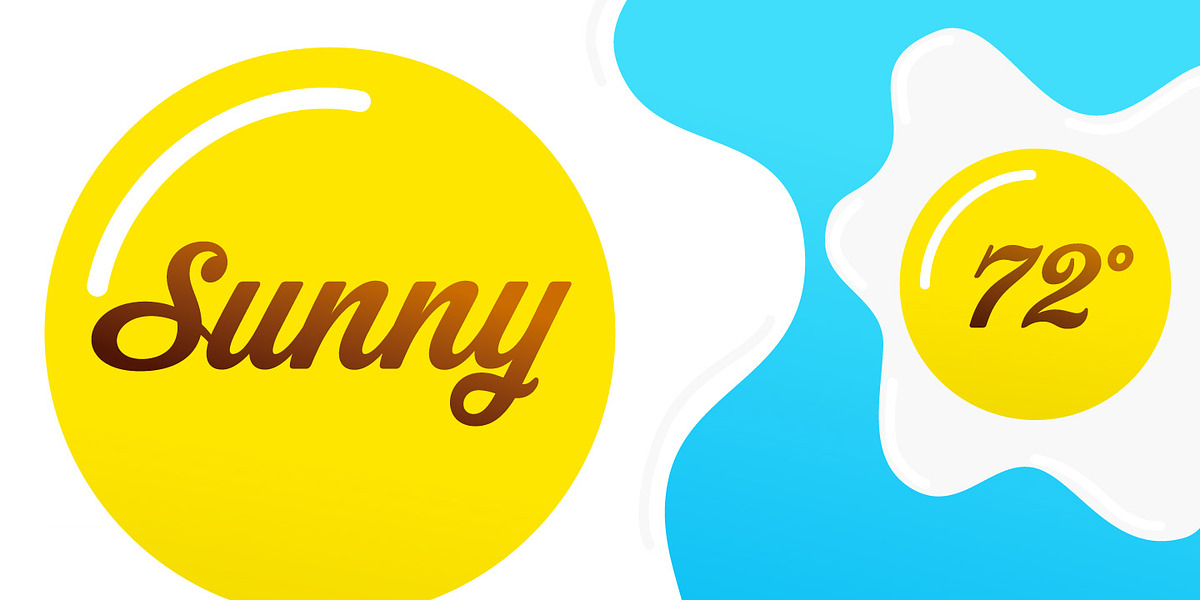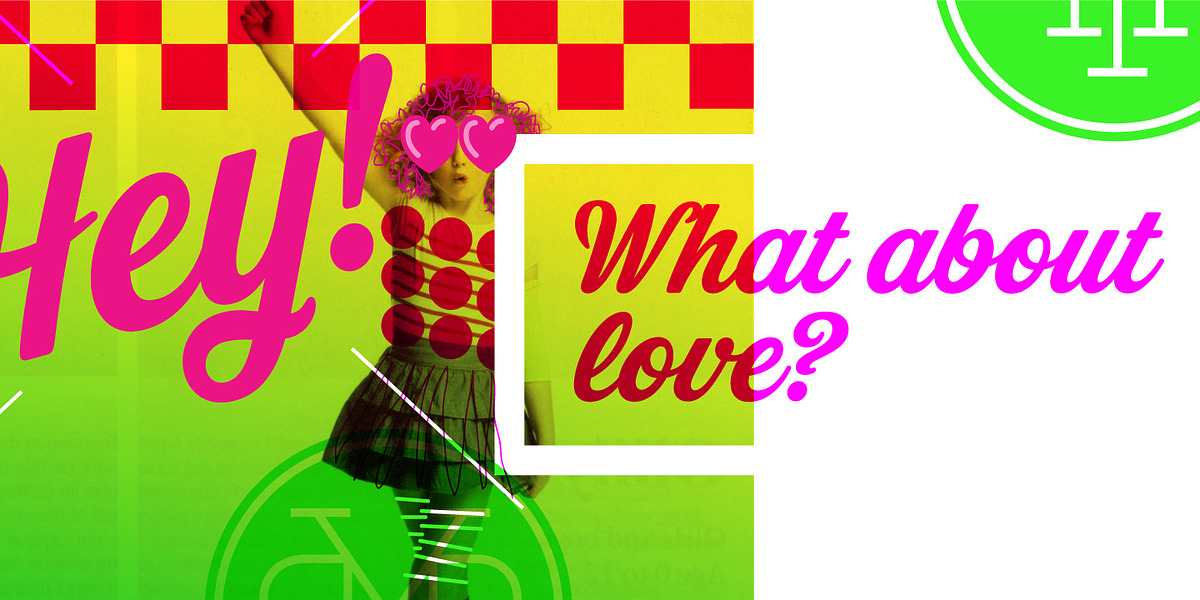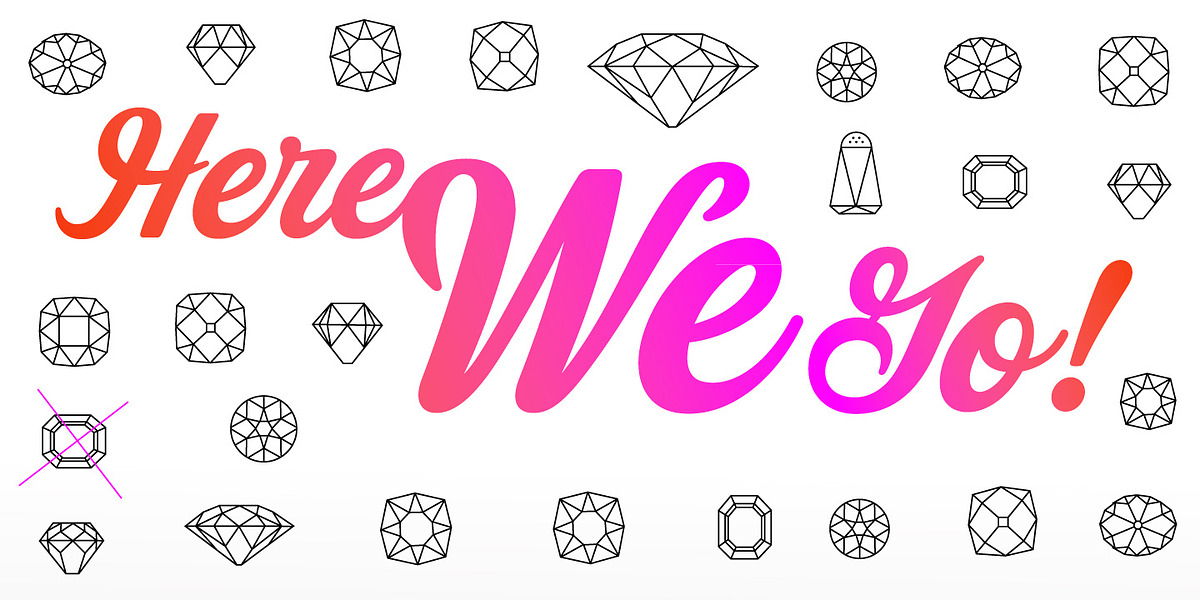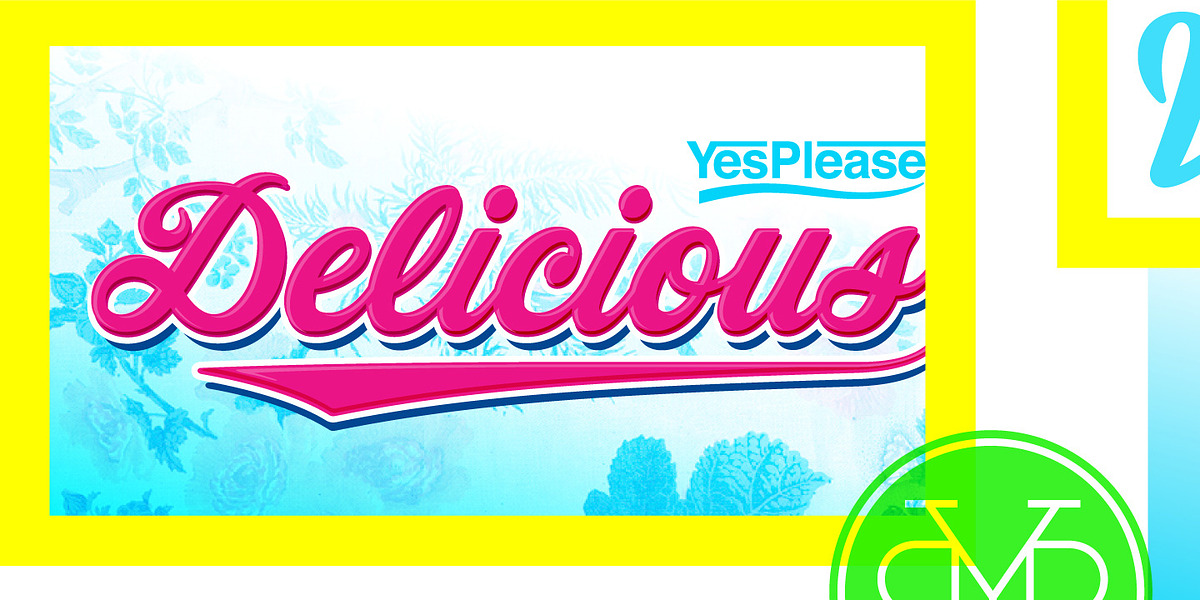
Delicious Pro
Delicious Pro is a bold and playful brush script font inspired by early 20th Century American packaging. Its casual yet elegant style, complete with swashes and ligatures, makes it well-suited for headlines, packaging design, and branding materials. Designed by Lee Schulz, Delicious Pro has been used by notable brands like Nike and IFC.